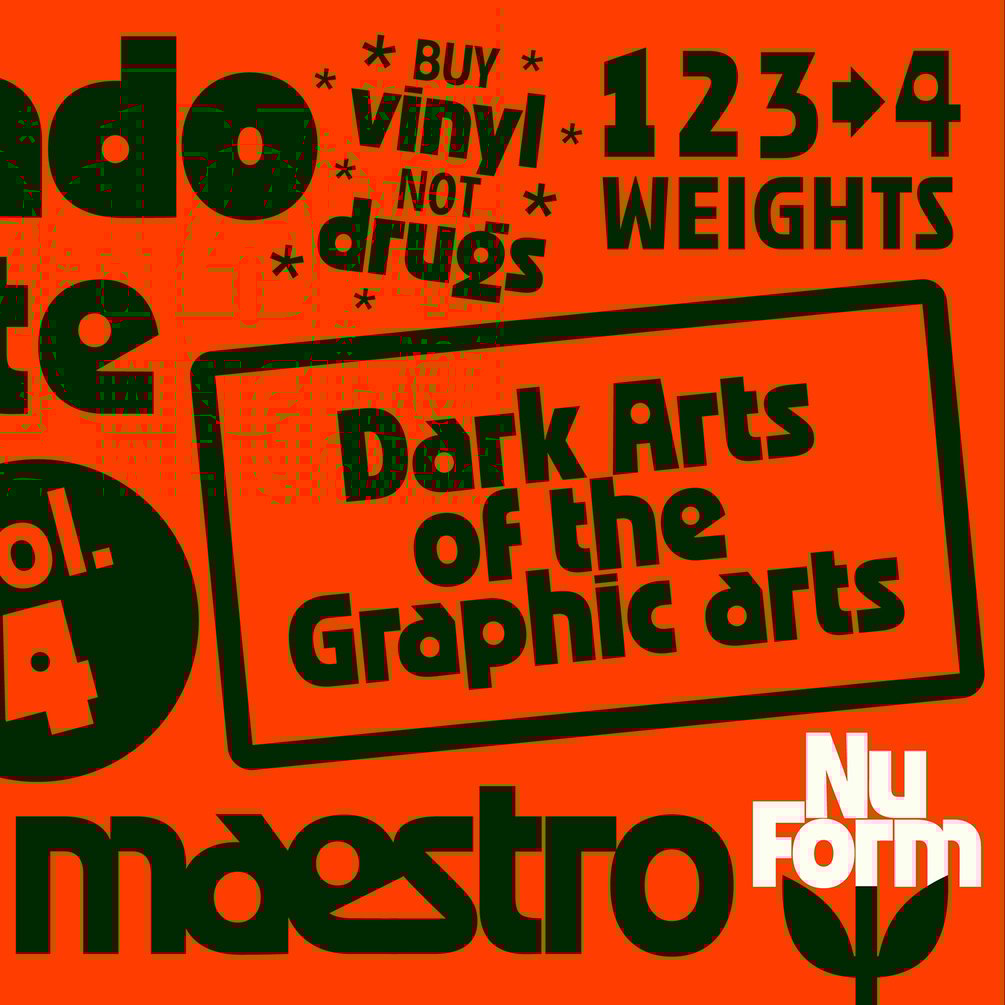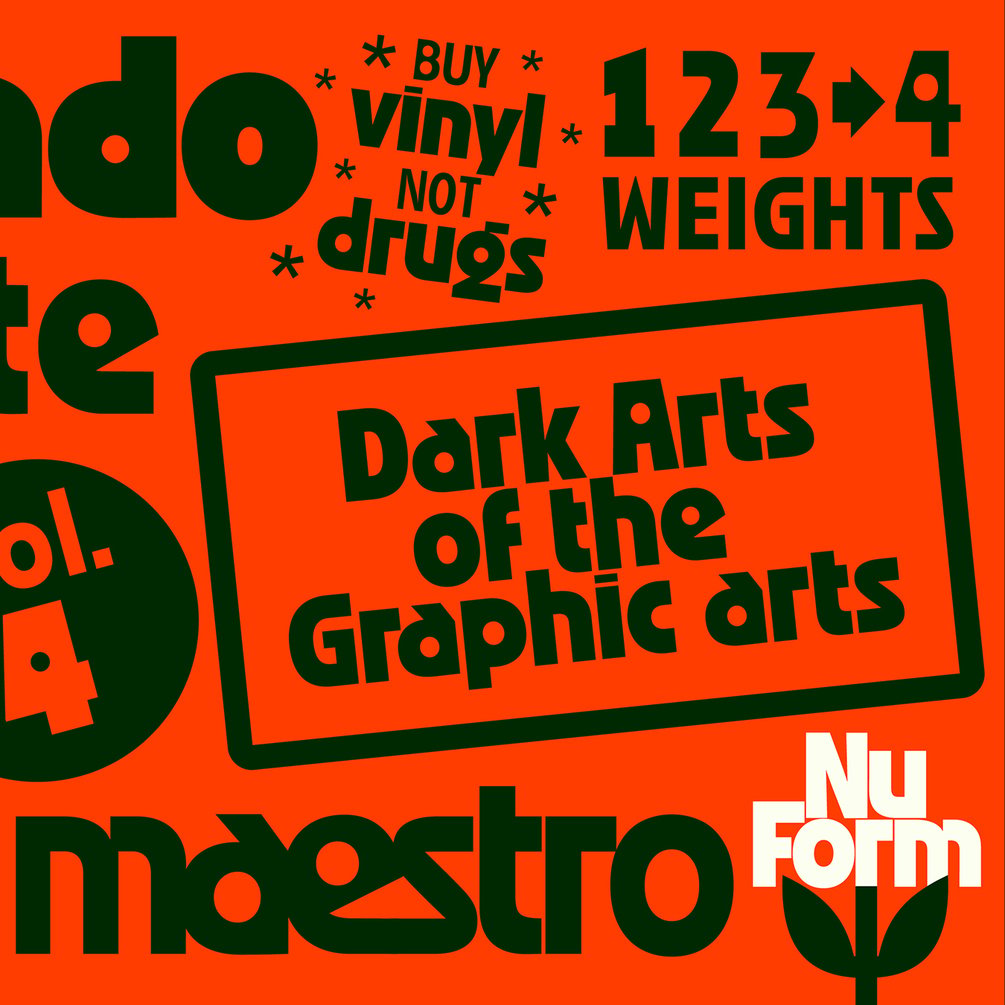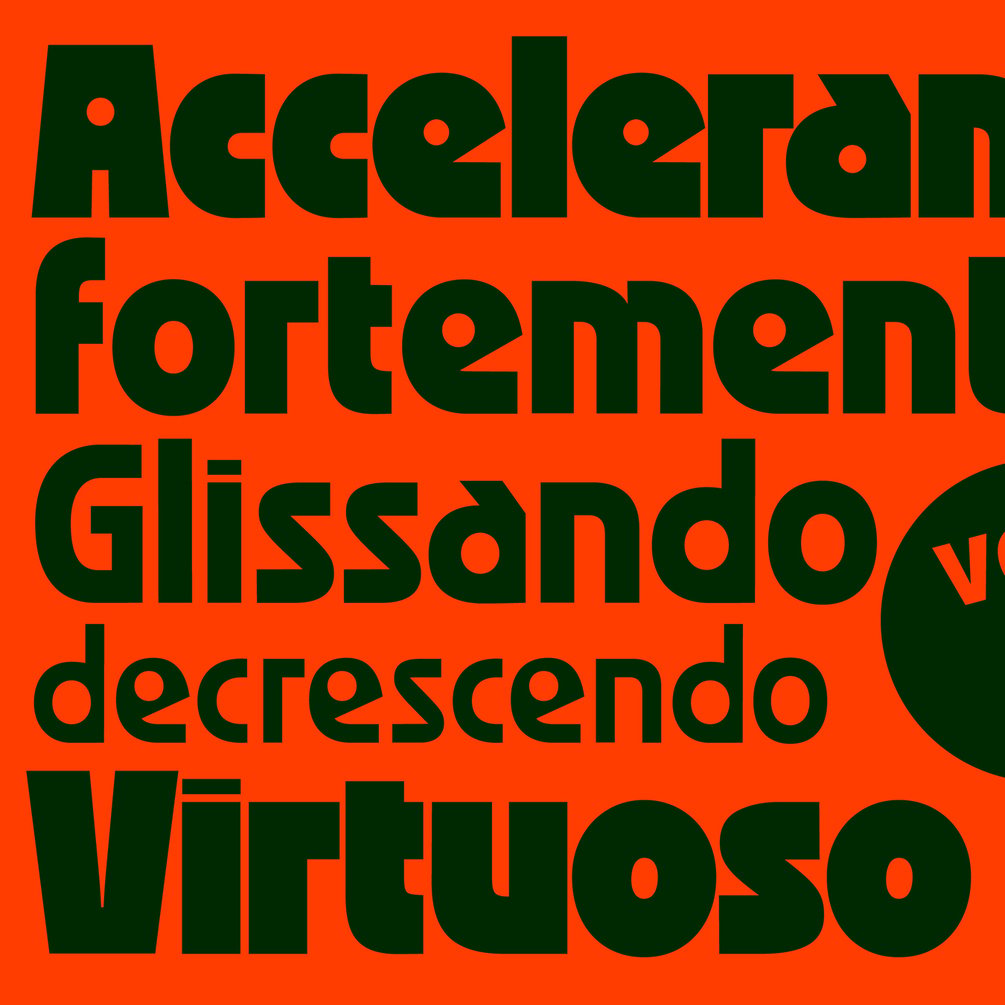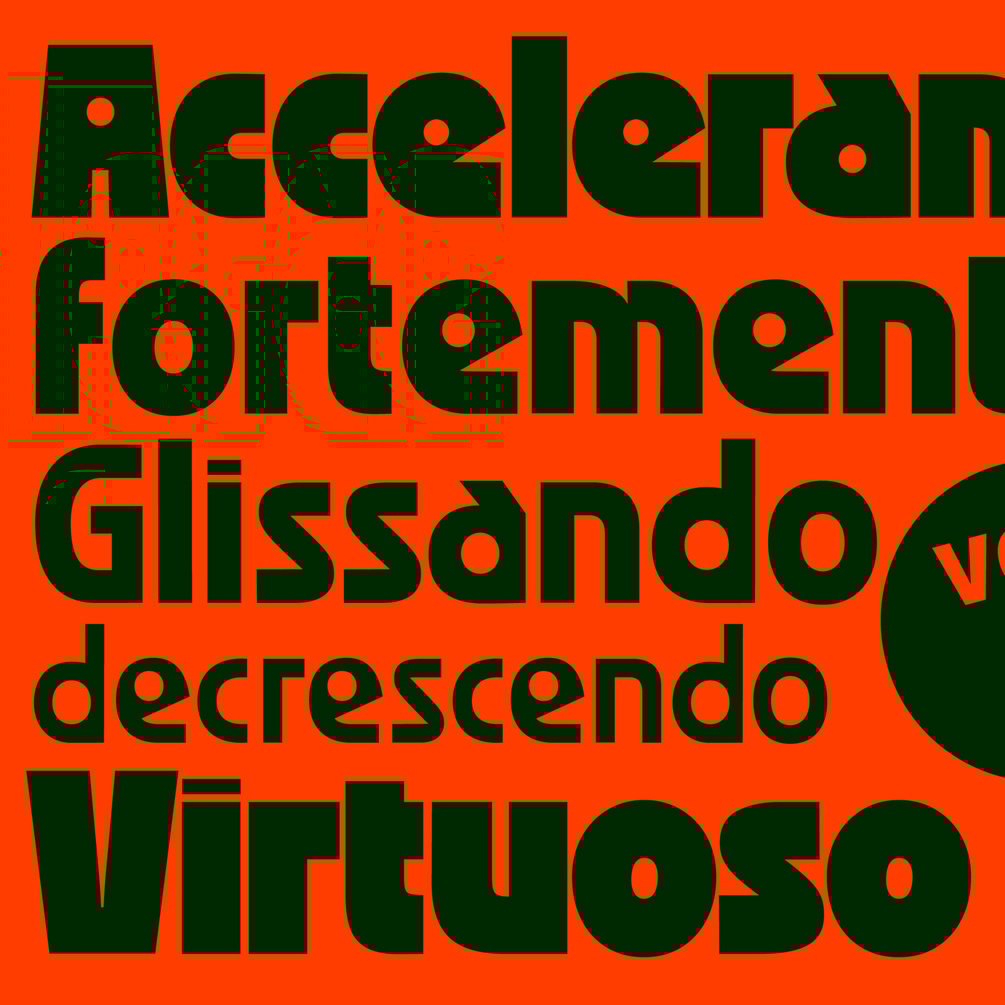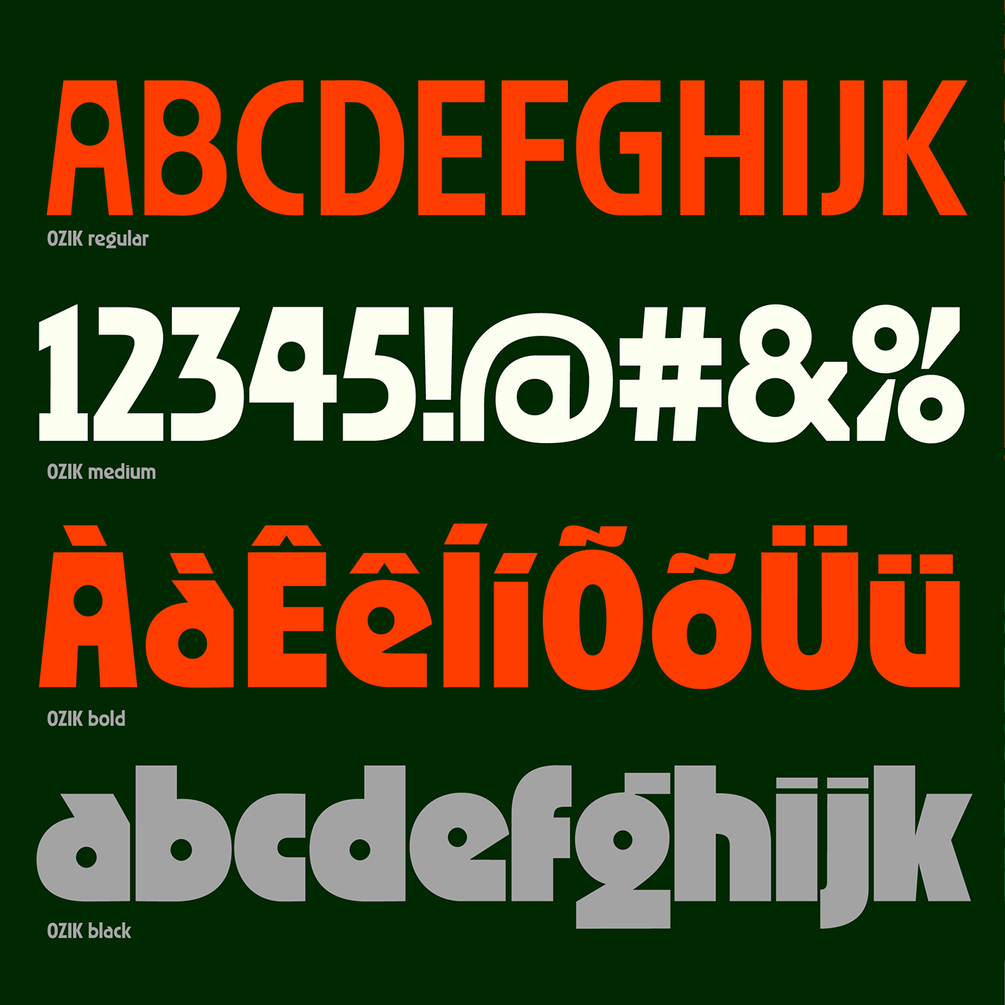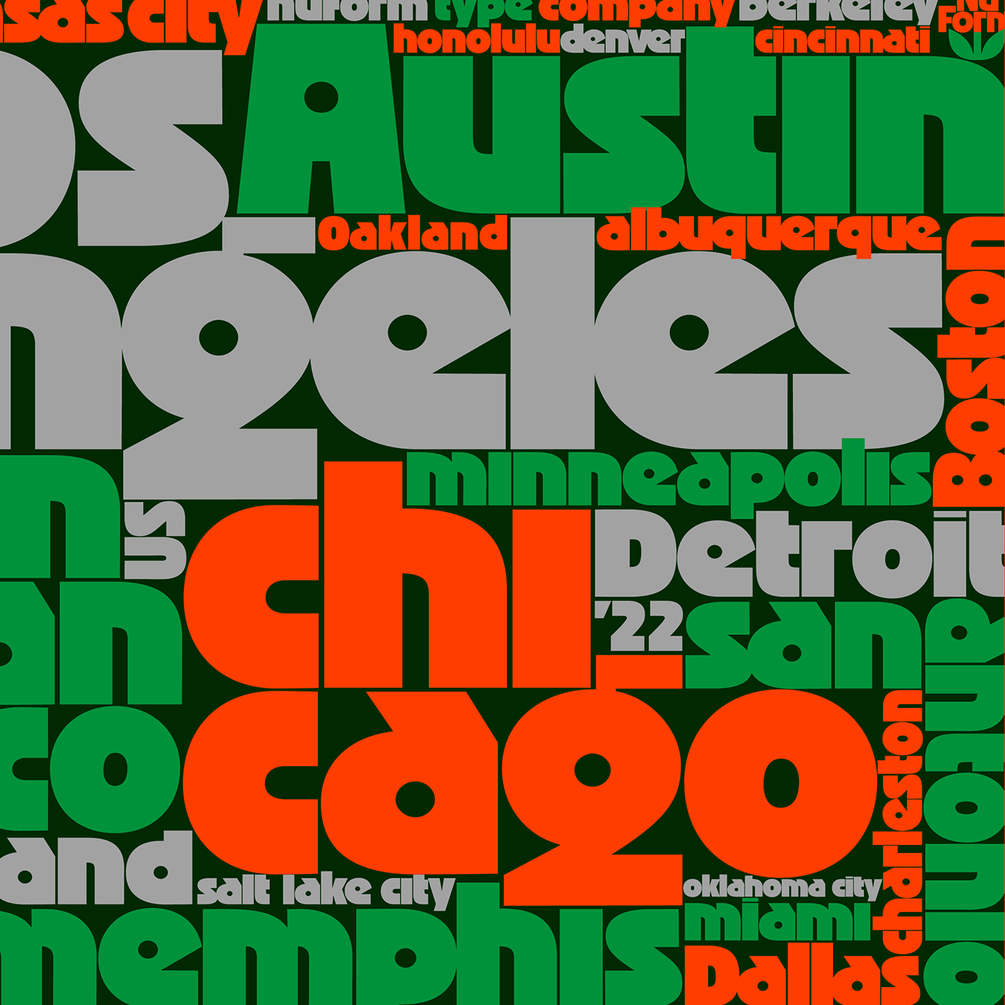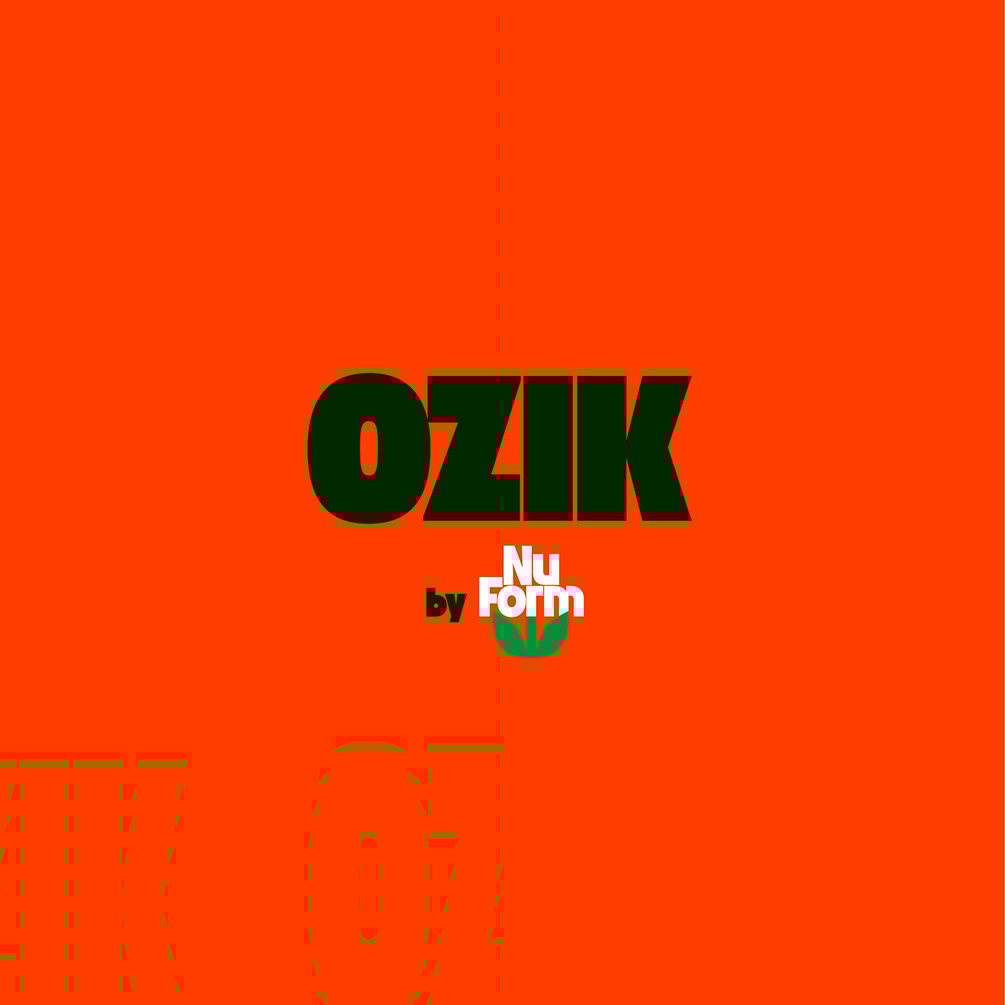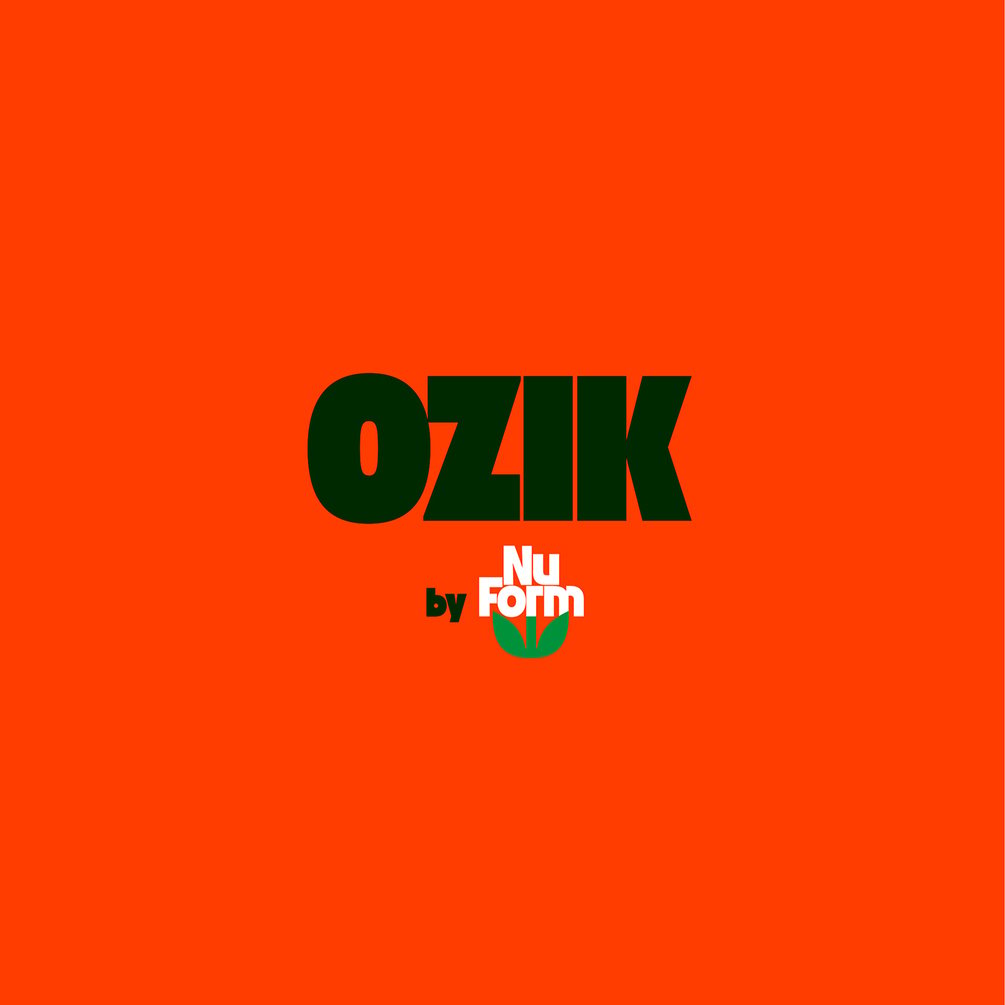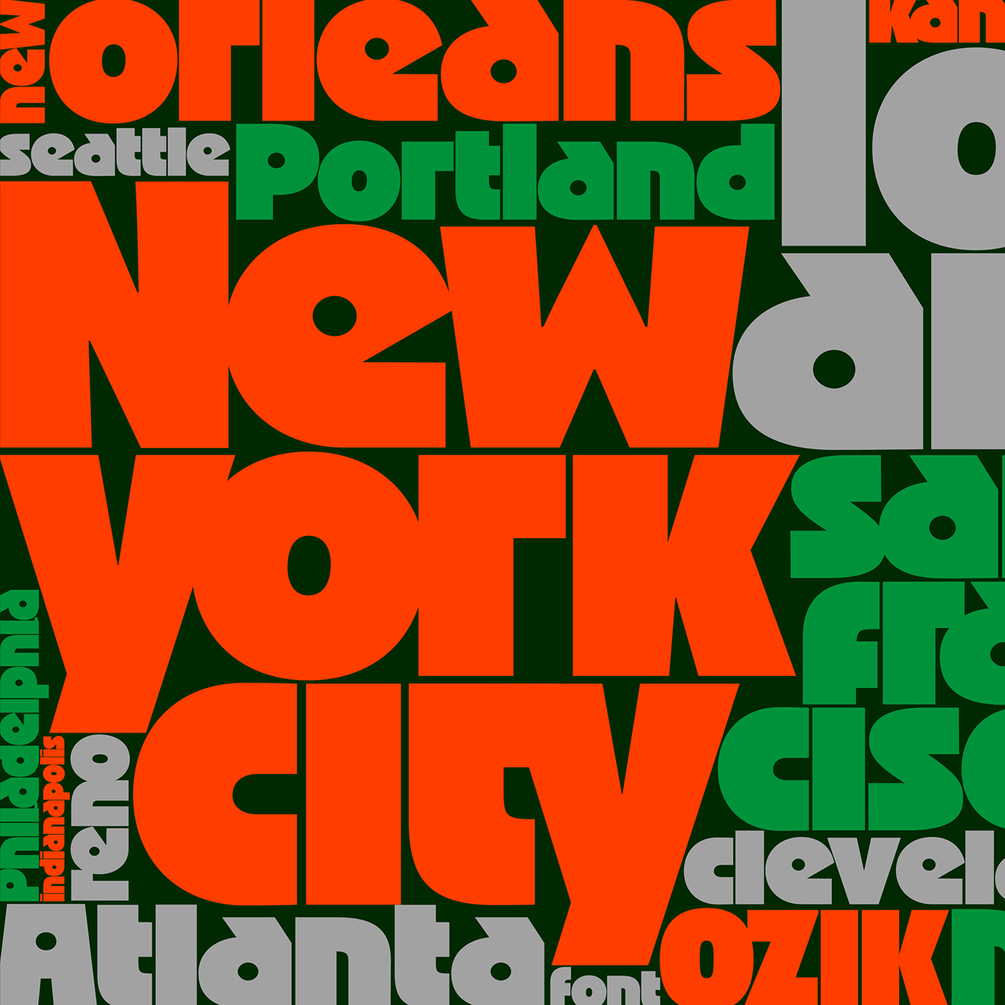
Nuform Type
A 4 weight display face that pays homage to the iconic lettering featured
on Black Sabbath's "Vol.4" album. This geometric sans will give any design
the touch of metal it deserves.
4 weights
Extended Latin